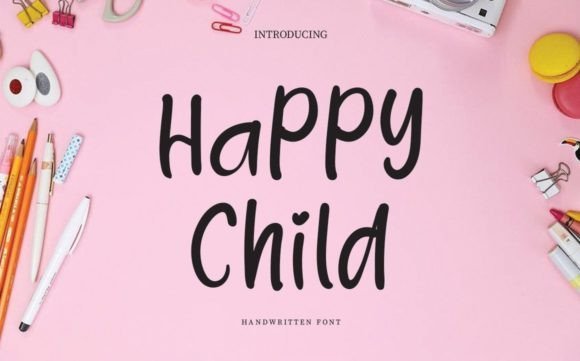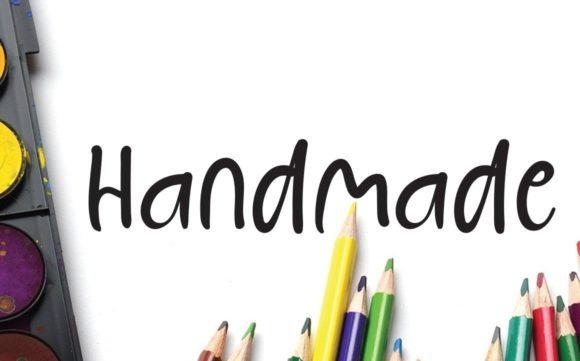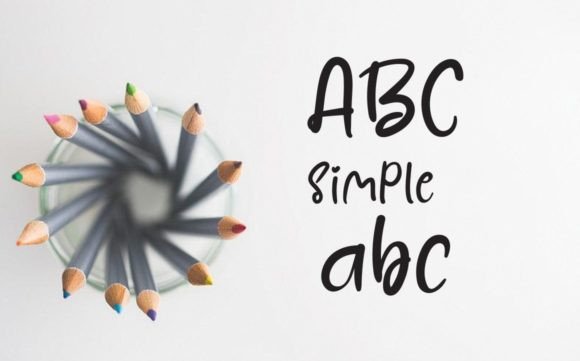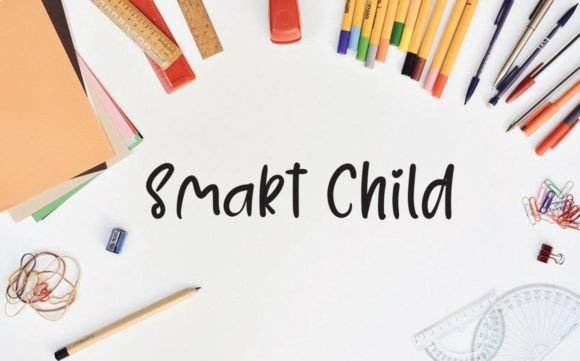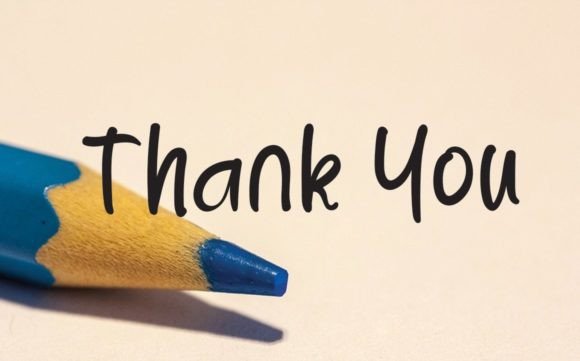
Unlock the Joy of Design with the Happy Child Font
You know that moment when a spark of creativity strikes, and your mind starts racing with ideas? It’s like a wave of excitement washes over you, and you can’t wait to bring your vision to life. For designers, this feeling is a daily occurrence, and the right tools can make all the difference. That’s where the Happy Child Font comes in – a cool, simple, and playful handwritten font that adds a touch of magic to your designs.
This versatile font is more than just a pretty face; it’s a game-changer for designers looking to elevate their work. Whether you’re working on a children’s book, a food blog, or a social media campaign, the Happy Child Font is sure to bring a smile to your face and a touch of whimsy to your designs.
Happy Child Font Key Features
- Size: 256 glyphs, including Latin, Cyrillic, and Greek alphabets
- Unique Characteristics: Whimsical, playful design with rounded edges and child-friendly features
- Font Style: Script, handwritten, and casual styles available for a more relaxed feel
Happy Child Font Review
Overall, I’m quite pleased with the Happy Child Font. It’s a fun, playful typeface that’s sure to bring a smile to kids’ faces. ✨ The font’s rounded edges and whimsical feel make it perfect for children’s books, educational materials, and even kids’ menus. ✨ The font is also highly customizable, allowing you to adjust the weight, spacing, and color to suit your design needs.
Here are some specific features that I love about the Happy Child Font:
- Highly legible and easy to read, even for young children
- Customizable with a range of weights and styles
- Perfect for creating a fun and playful atmosphere in kids’ designs
- May not be suitable for formal or professional designs
- Can be a bit too playful for some audiences, may come across as immature
- Some letters may not be as detailed as you’d like, particularly in smaller font sizes
- ⚠️ Limited language support, may not be suitable for multilingual designs
Overall, I think the Happy Child Font is a great addition to any designer’s toolkit. While it may have some limitations, its playful feel and high customizability make it a great choice for kids’ designs. Just be sure to consider your audience and design needs before using it.
Happy Child Font Practical Application Guide
The Happy Child Font is ideal for:
– Children’s book covers and illustrations
– Educational materials and worksheets
– Party invitations and decorations
– Branding and marketing materials for kids’ products and services
Tips for Getting the Most Out of Happy Child Font
For the best results, pair Happy Child Font with bright, playful colors and bold graphics. Experiment with different font sizes and styles to create visual interest. Don’t be afraid to mix and match with other fonts to create a unique look.
Alternative Fonts for Happy Child Font
Great Vibes Font is a playful, handwritten font that is perfect for creating a fun and lively atmosphere. It is ideal for use in titles, headings, and quotes. Great Vibes Font is a great alternative to Happy Child Font as it has a similar playful feel, but with a more modern and elegant touch.
Pacifico Font is a beautiful, cursive font that is perfect for use in invitations, greeting cards, and other creative projects. It is a great alternative to Happy Child Font as it has a similar elegant and sophisticated feel, but with a more relaxed and casual tone.
Lobster Font is a fun, cursive font that is perfect for use in titles, headings, and other creative projects. It is a great alternative to Happy Child Font as it has a similar playful and whimsical feel, but with a more dramatic and attention-grabbing effect.
Amarante Font is a beautiful, handwritten font that is perfect for use in titles, headings, and quotes. It is a great alternative to Happy Child Font as it has a similar elegant and sophisticated feel, but with a more vintage and distressed touch.
Q: What is the recommended font size for using the Happy Child Font?
The recommended font size for the Happy Child Font is between 12pt and 24pt, depending on the intended use and design context. For digital applications, a minimum font size of 14pt is recommended to ensure readability on various devices and screen resolutions.